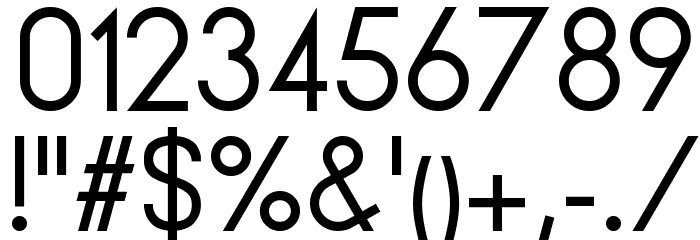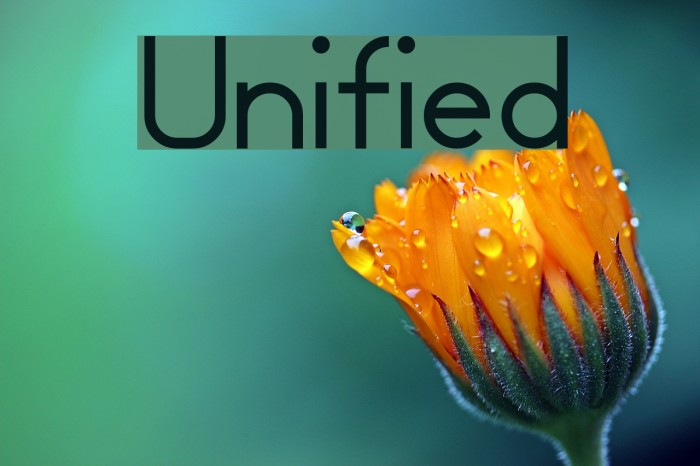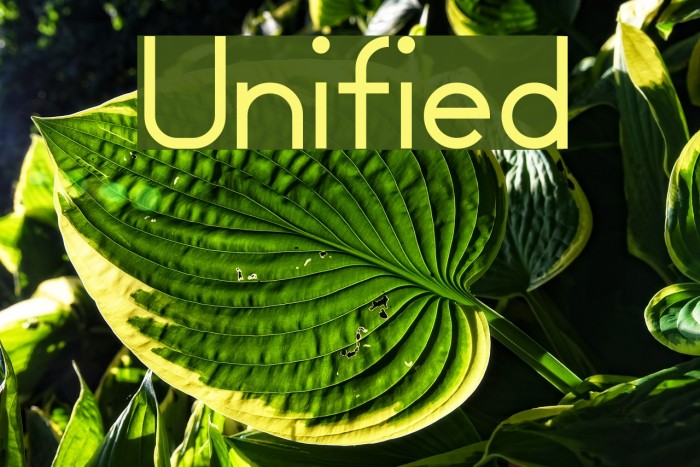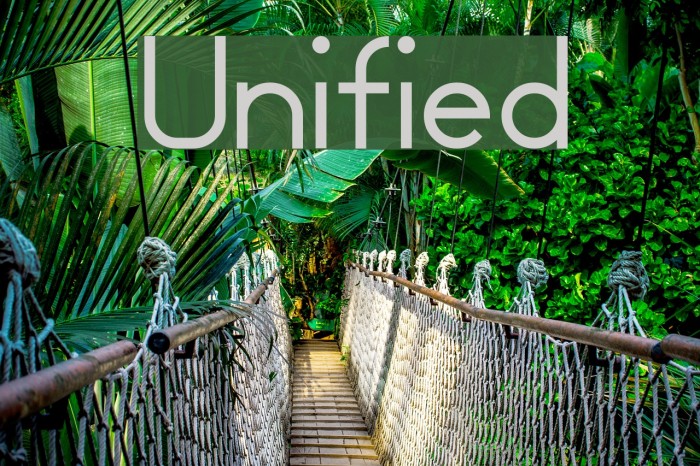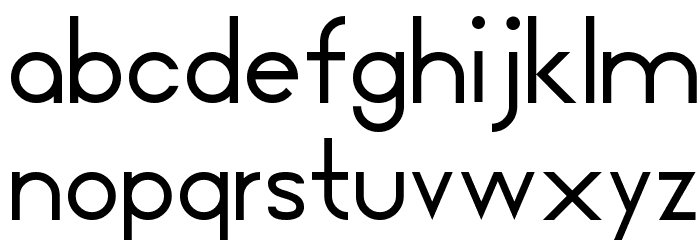
Unified Font
This font features a clean and modern sans-serif style, characterized by its geometric shapes and uniform line thickness. The uppercase letters are bold and striking, with a consistent height that creates a harmonious appearance. The lowercase letters maintain a similar geometric structure, offering a seamless transition between characters. The numerals are clear and easily distinguishable, making them suitable for a variety of applications. Special characters are well-integrated, maintaining the overall aesthetic of the font. The design is versatile, making it ideal for both digital and print media.
A modern, geometric sans-serif font with clean lines and uniform thickness.
• Proposed Projects: Ideal for branding, web design, advertising, and editorial layouts.
• Category: Sans-Serif
• Contrast: Low
• Overall Style: Modern
• Use Case: Headlines, Body text, Logos